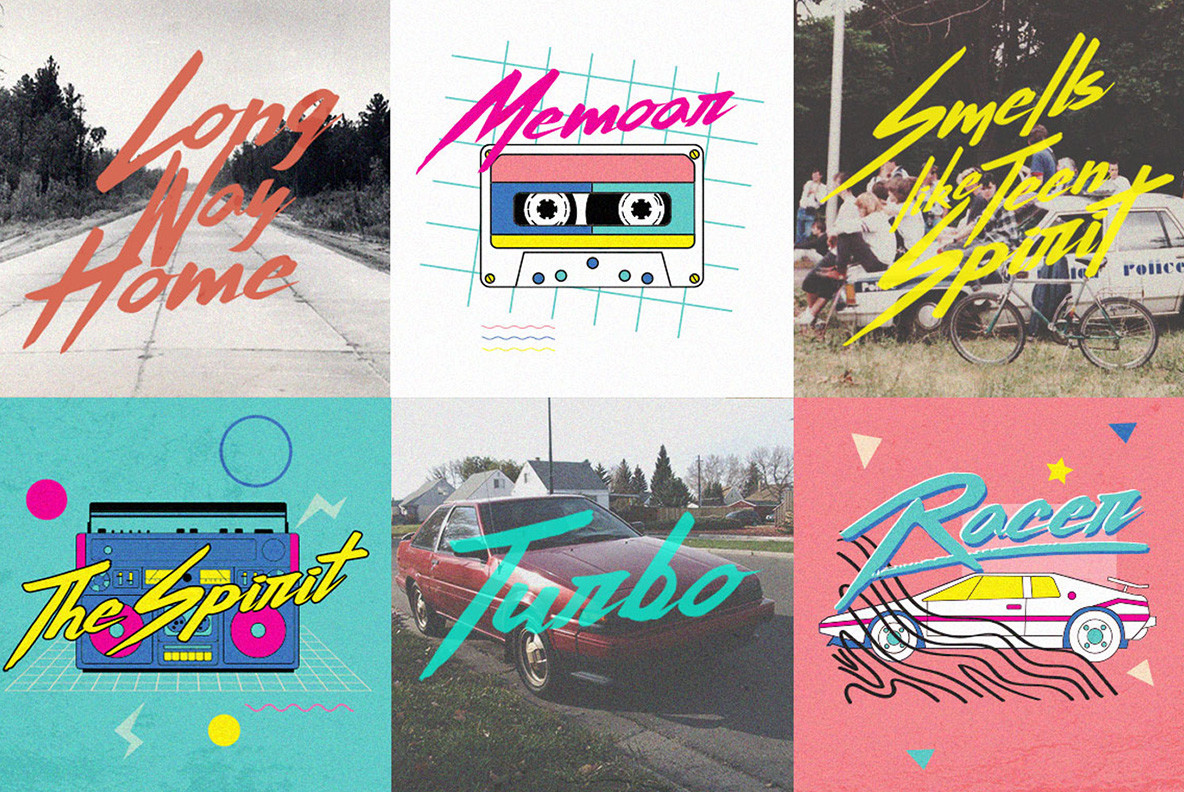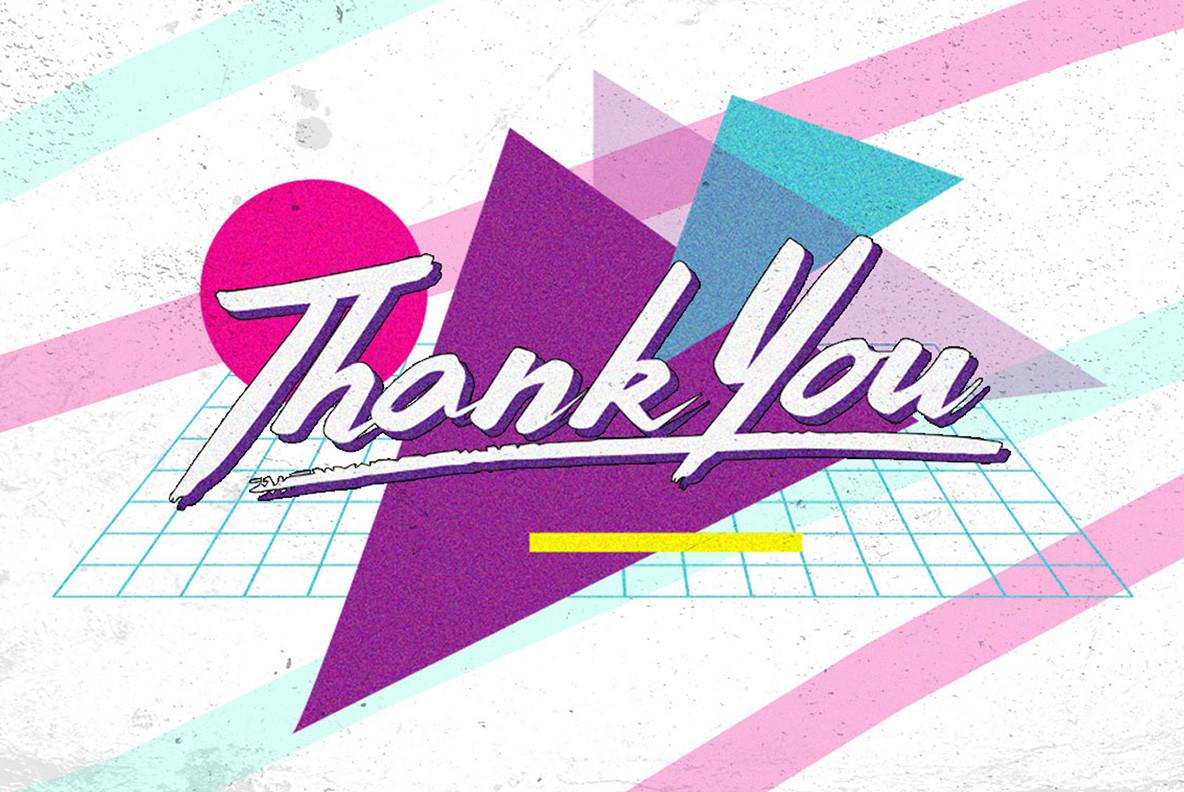
Thunderstorm Font
Thunderstorm
Introducing Thunderstorm typeface. A hand-made brush typeface inspired by 80s-90s music, retro, disco, grunge, and pop culture. Uses for poster, logo, clothing, books, invitation, logo, etc.